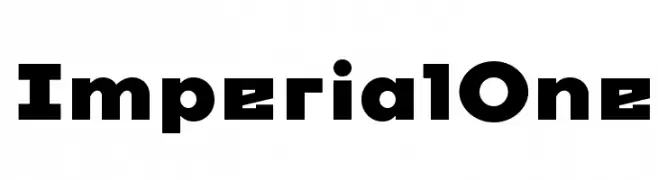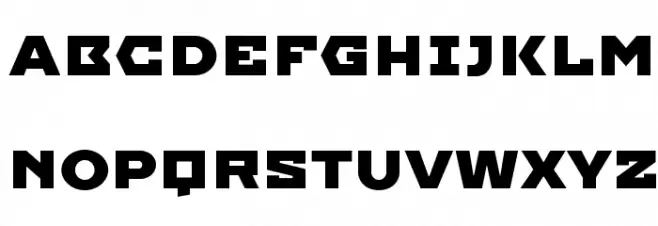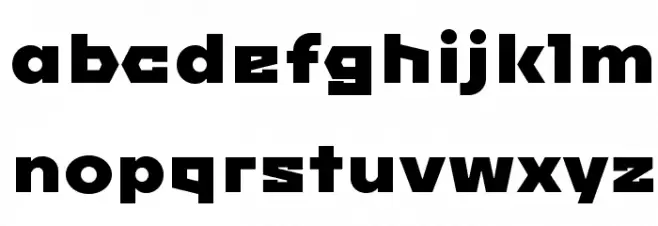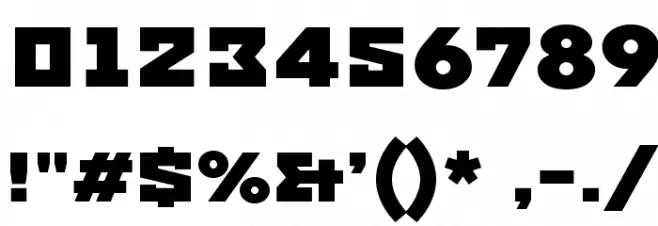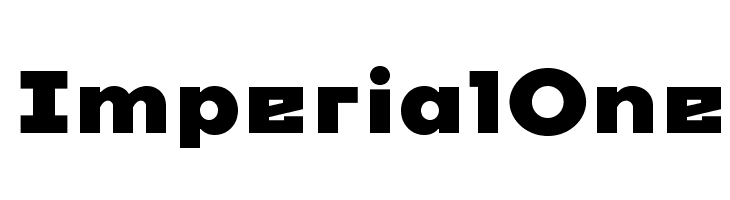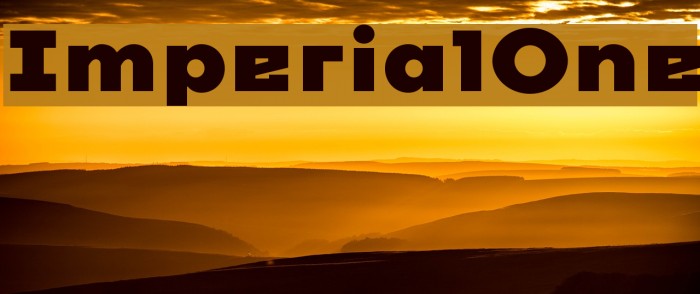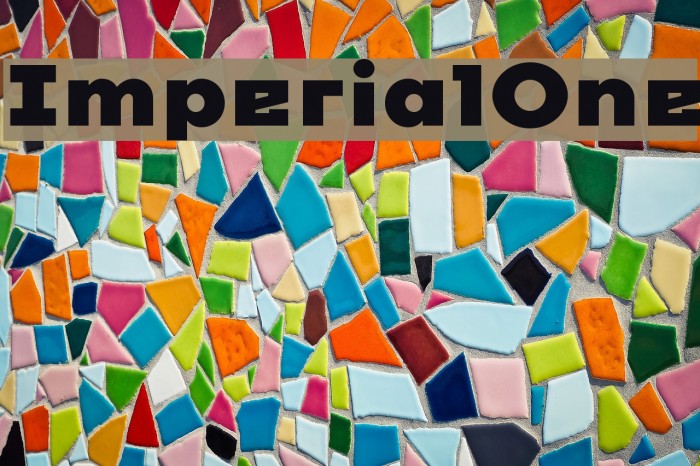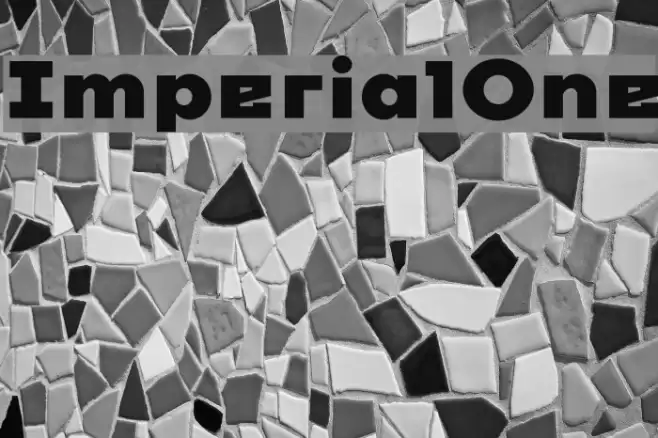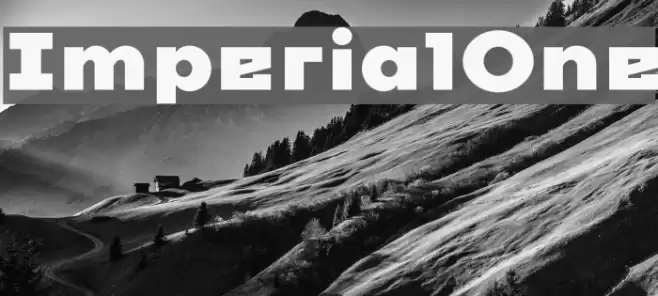
ImperialOne Font
This font is based on the corporate font for the game The Mandate. The Mandate is a science fiction roleplaying game which sees the player as a disgraced space captain who gets one chance at redemption and is the last desperate hope for the newly crowned Empress to restore peace and secure the future of humanity.